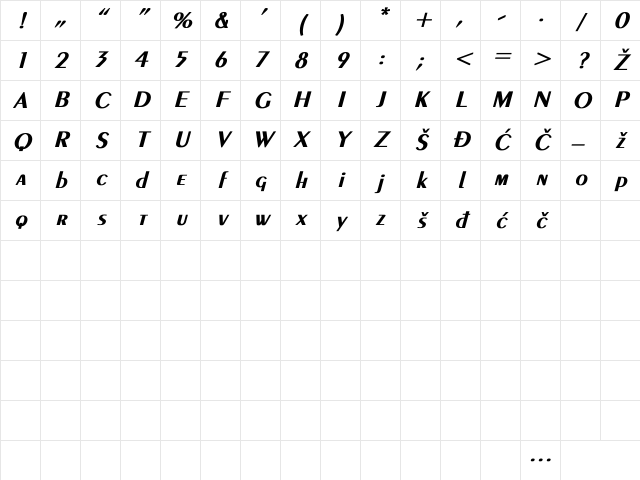
Exotic Bold Italic
Exotic Family
Design Context for Exotic
Exotic is a composed and adaptable typeface that performs quietly and consistently across a wide range of design contexts. The slanted form adds forward momentum and visual energy. Its bold stroke weight gives it real presence on the page.
Pro Tip: Use Exotic for emphasis, pull quotes, and subheadings where its slanted energy can add rhythm to the layout.